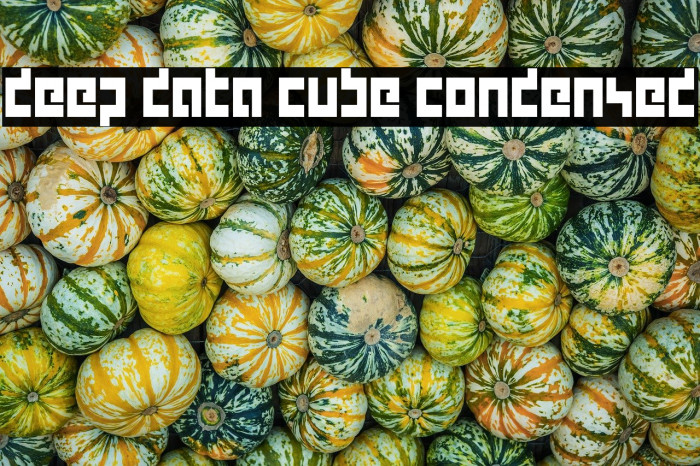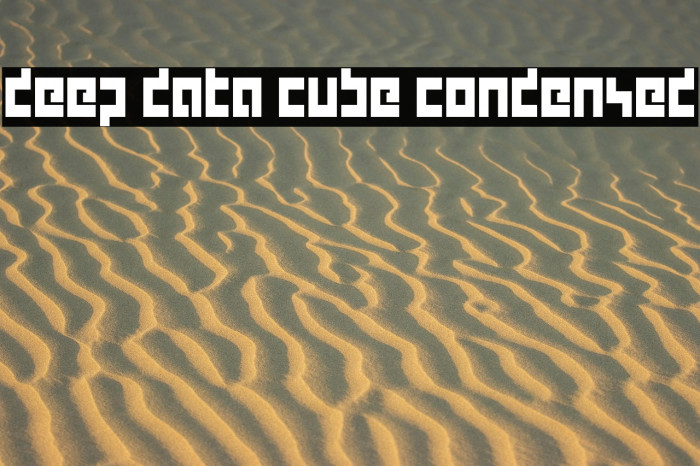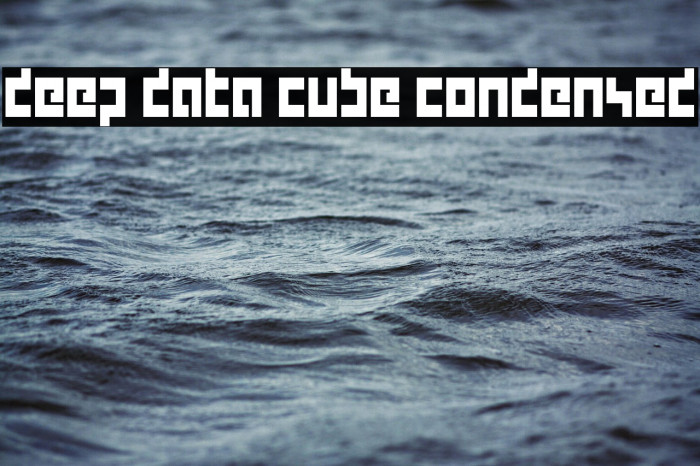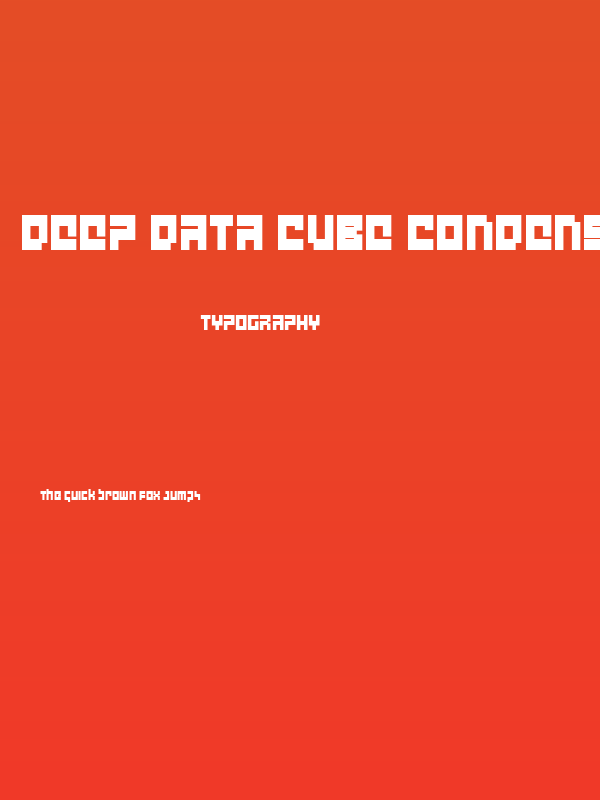
deep data cube condensed Font
deep data cube condensed Description
This font features a bold, geometric design with a distinctly modern and digital aesthetic. Each character is constructed with sharp, angular lines and a blocky structure, giving it a futuristic and tech-inspired appearance. The uniformity in stroke width across all characters contributes to a cohesive and robust look. The uppercase and lowercase letters maintain a consistent style, with the lowercase slightly smaller but equally bold. The numerals and special characters follow the same design principles, ensuring a seamless integration across different text elements. The overall design is highly legible and impactful, making it suitable for attention-grabbing headlines or digital interfaces.
| Proposed Projects | Ideal for tech branding, digital interfaces, video game graphics, and futuristic posters. |